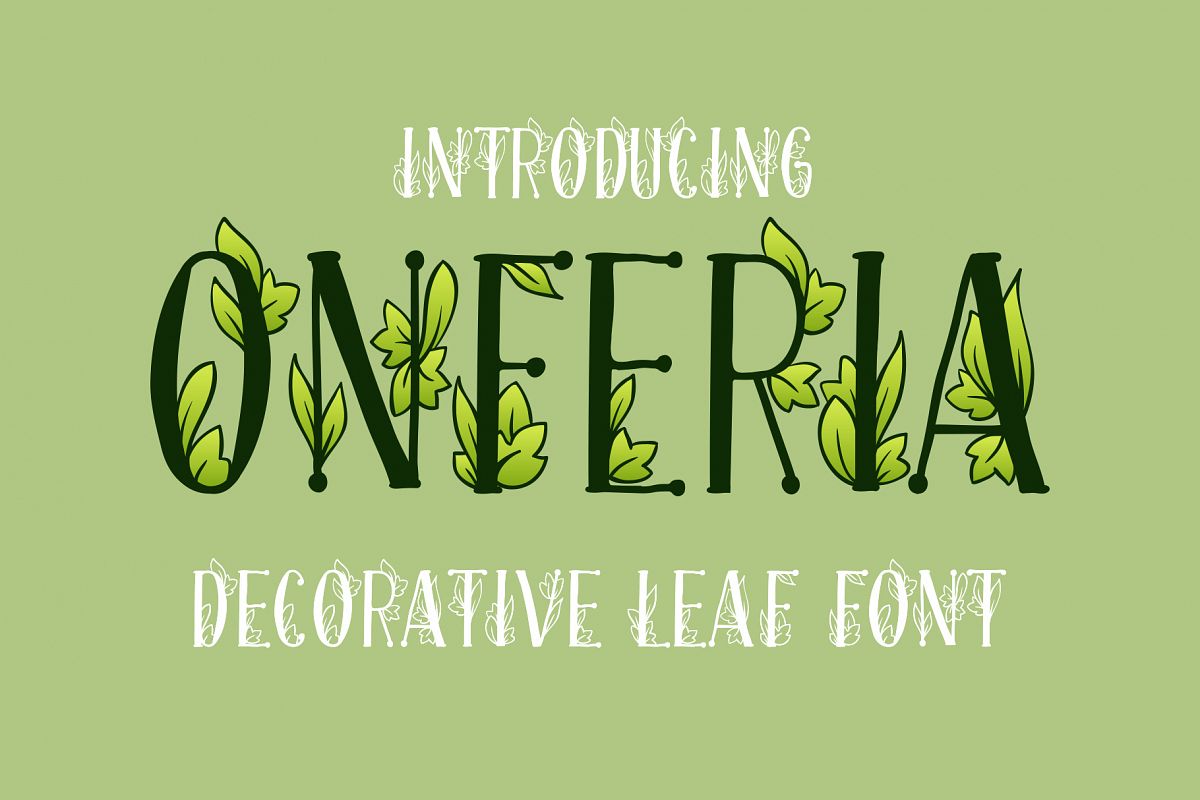
Onferia - decorative leaf font
Onferia - decorative leaf font.
Quality hand crafted leaves and hand drawn characters.
OnFeria.OTF This font includes 130 characters: smallcase, lowcase, numbers, symbols, special catchwords for Sales with percents, alternate glyphs, and ligatures.
BONUS!!! OnFeria-Color.OTF This is color font with initial letters, numbers, ligatures and symbols " ? ! "